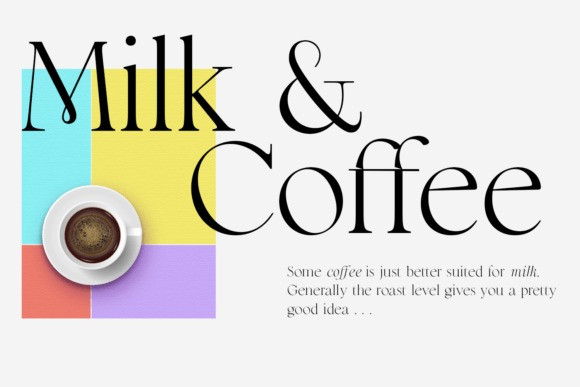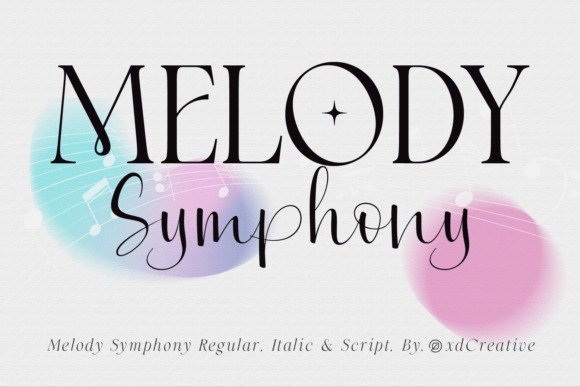
Melody Symphony Font
Melody Symphony Font . This font features a unique, hand-drawn style that gives your designs a warm, personal feel. Perfect for use in invitations, logos, and any project that needs a touch of charm. The font’s elegant curves and natural flow make it both eye-catching and readable, making it a versatile choice for any design project.
“MelodySymphony” the latest family from @faldykudo. the “Melody” is a feminine and modern serif that has a slim construction and anatomy combined with a “Symphony” hand-drawn modern calligraphy it is perfect for your various design needs.
“MelodySymphony” would look great for logos & branding, invitations, stationery, wedding designs, social media, advertisements, printed quotes, product packaging, labels, photography, watermarks, special events, or even magazine layouts.